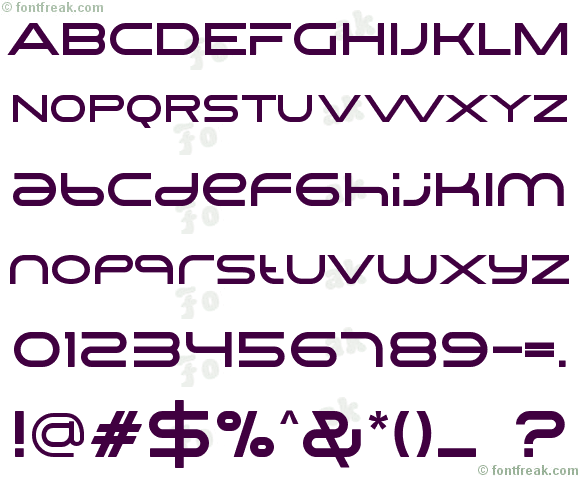
Aeros
Aeros by Burhan Afif is a modern sans-serif typeface that embodies a clean and minimalistic aesthetic, making it a versatile choice for a variety of design applications. Released in 2020 as freeware, this font features a balanced stroke weight and a consistent level of contrast that enhances readability while maintaining an elegant appearance. The letterforms are well-spaced, contributing to its overall clarity and sophistication. With its geometric shapes and subtle curves, Aeros is both contemporary and approachable, making it suitable for various creative projects.
This font excels in numerous use cases, including sleek branding materials, professional presentations, and engaging social media graphics. Its modern look makes it ideal for tech startups looking to establish a fresh identity, while its readability ensures it works well for website headers and body text alike. Additionally, Aeros can be effectively utilized in advertising campaigns, where eye-catching visuals play a crucial role in capturing audience attention. Graphic designers, content creators, and small business owners will find Aeros particularly appealing due to its versatility and ease of use.
What truly sets the Aeros font apart is its balance of modernity and functionality. It provides a sophisticated yet friendly vibe that can enhance the visual impact of any project. Whether you are designing a minimalist poster, a stylish restaurant menu, or a captivating wedding invitation, the Aeros font free download allows you to elevate your designs with a touch of elegance. Explore the possibilities that this unique typeface offers and discover how it can transform your creative endeavors.